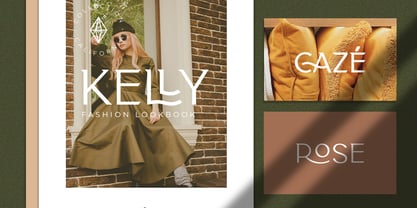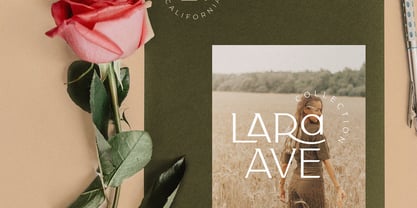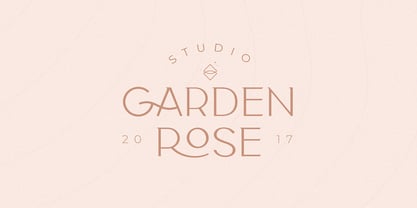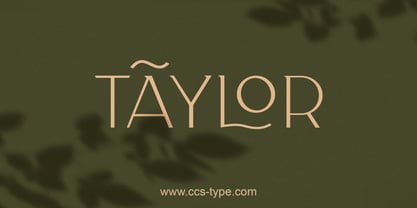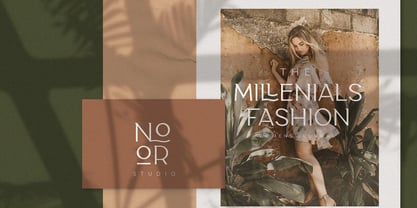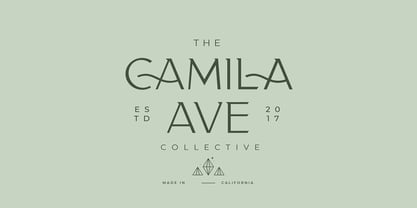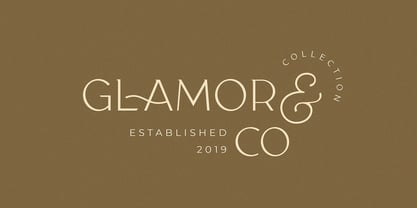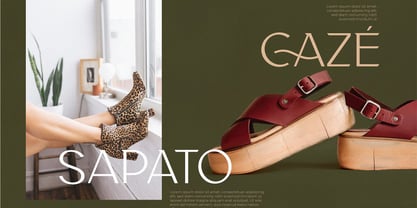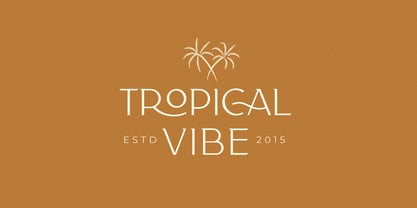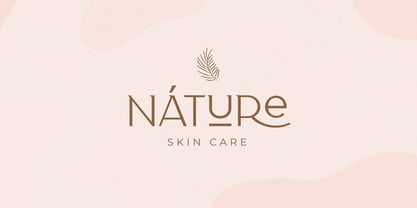
CCS Taylor
by Creative Corner Studio
The CCS Taylor Font Family was designed by Kurt Harahap and published by Creative Corner Studio. CCS Taylor contains 4 styles and family package options. More about this family
Classy Taylor is a minimalist, modern, and elegant vintage font that features exquisite ligatures and a wide array of alternative glyphs, along with ornamental elements and multilingual support. This versatile typeface excels in both large and small sizes, making it ideal for various applications. Classy Taylor is perfect for branding projects, logo design, clothing branding, product packaging, magazine headers, and as a stylish text overlay for any background image. Its unique characteristics and refined style make it a standout choice for creative endeavors.
Designers: Kurt Harahap
Foundry: Creative Corner Studio